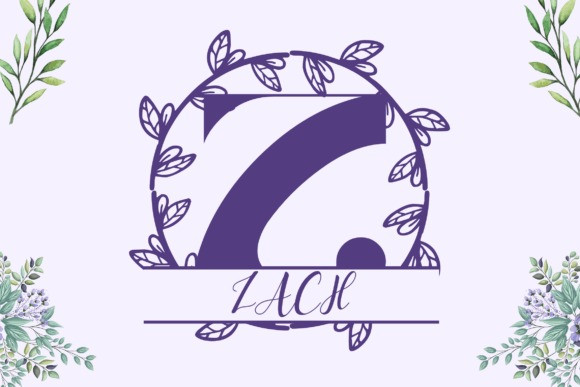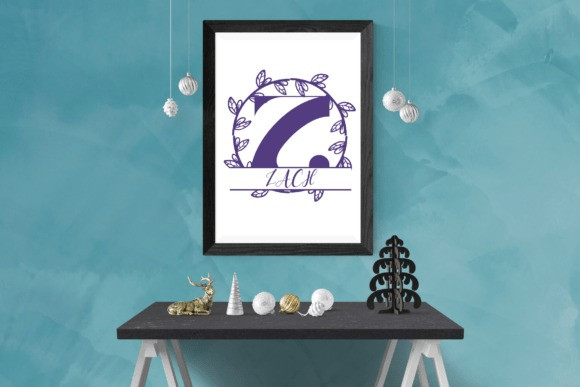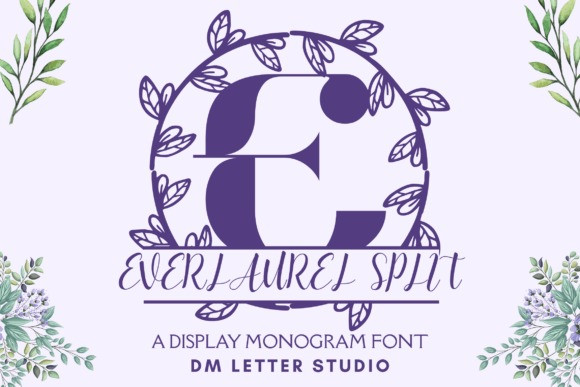
Everlaurel Split Monogram Font
Everlaurel Split Monogram Font turns simple initials into timeless laurel-inspired emblems with a clean center split for names, dates, or short words. The strokes are smooth and balanced, so letters stay clear at any size. Because counters remain open and curves stay clean, tiny tags print crisp while large signage looks refined and premium. Use it for wedding suites, boutique logos, keepsake gifts, wax seals, stationery, and luxury packaging. As a result, your designs look personalized and gift-ready in minutes.
Fast layouts with Everlaurel Split
Start with a bold split initial, then place a name, family title, or date across the center bar. After that, add supporting text in a soft serif or a neat humanist sans. Because Everlaurel Split holds shape at small sizes, cards, cartons, acrylic signs, and tags print cleanly and cut smoothly. In addition, the proportions pair beautifully with wreath frames, laurel rings, oval borders, and minimal line accents, so full sets come together in minutes. Finally, save palette pairs like sage & ivory, champagne & charcoal, navy & pearl, or cocoa & cream to repeat across your product line.